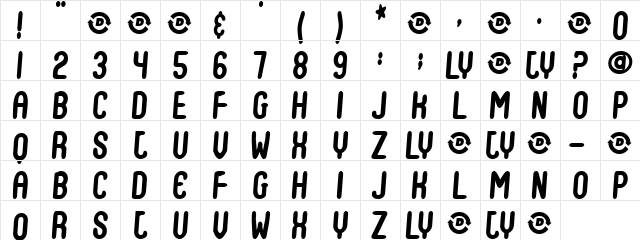
Truth Regular
Design Context for Truth Typeface
Truth takes a measured approach to typography — its balanced proportions and neutral character make it a reliable workhorse for both digital and print work.